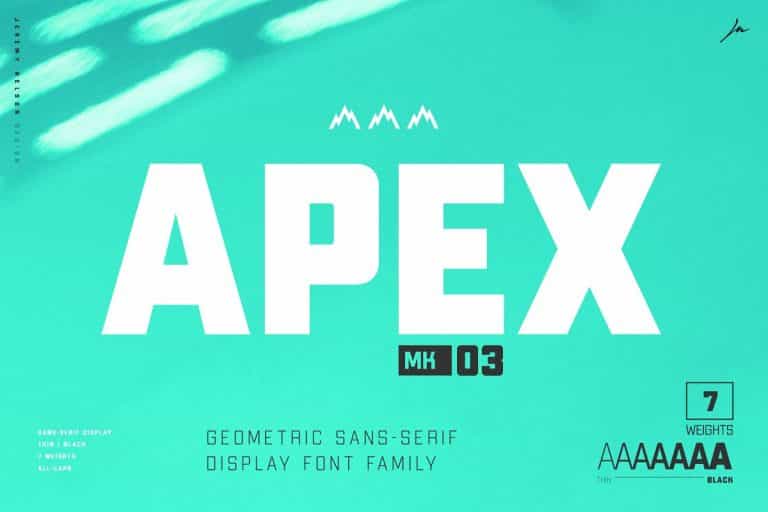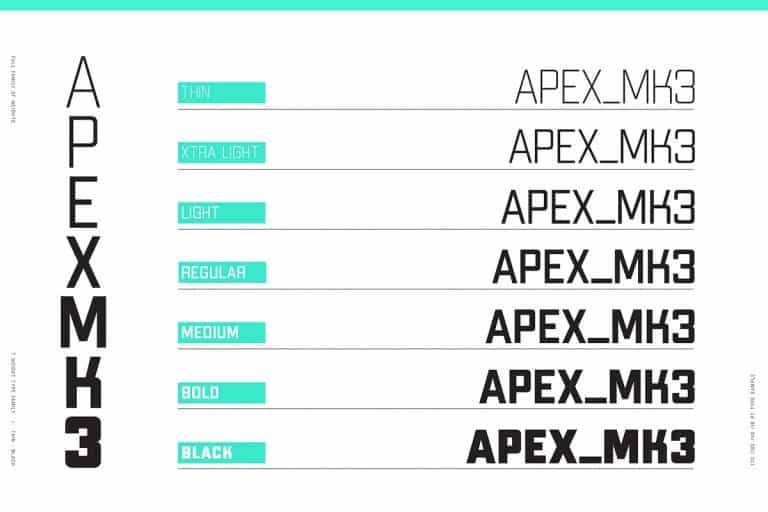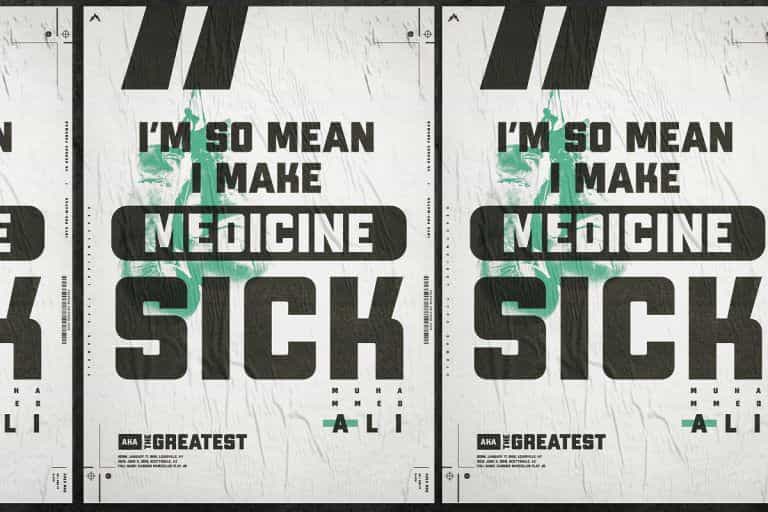
Hello there. Hello to Apex Mark 3 Font Family! Apex Mark 3 is a font type inspired by the classical geometric forms and athletic block types that gives you an eye-catching display style for your most exciting projects, it is sans serif. With the human letters that are condensed, yet they still provide enough contrast for readability. Apex Mark 3 is very happy to be among the Apex font family! We introduce to you Apex Mark 3 as your next source for creative text solutions!